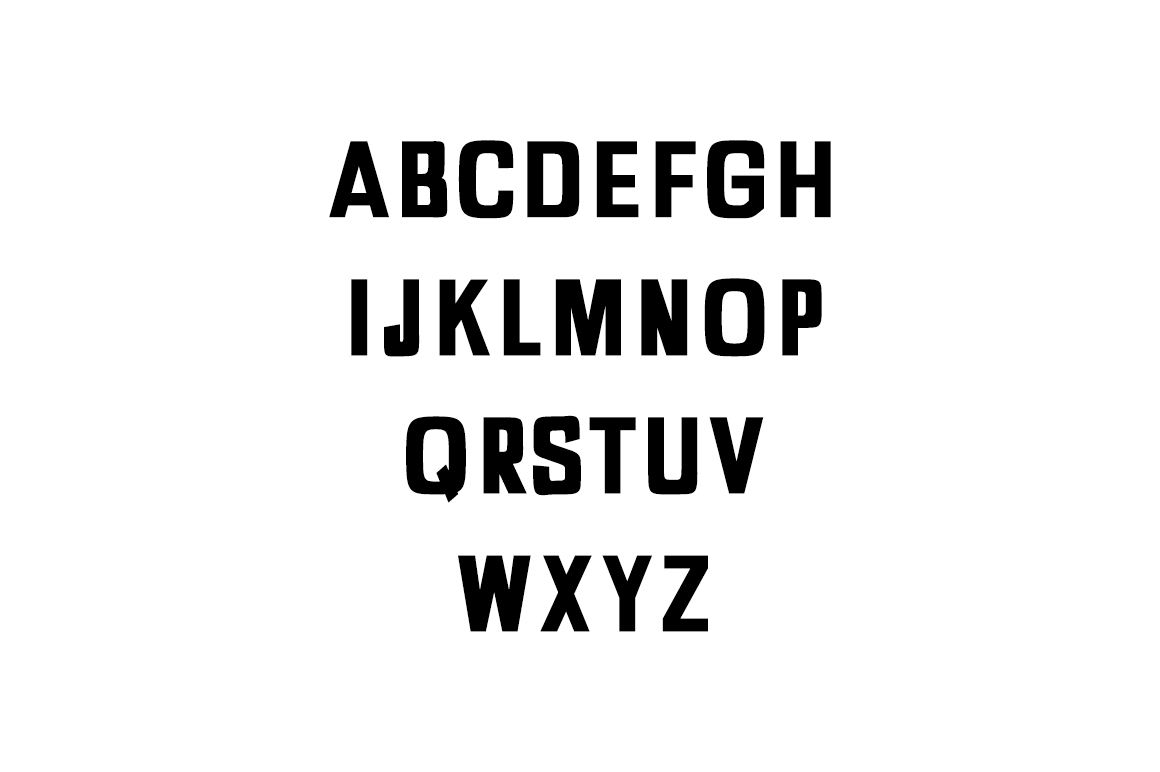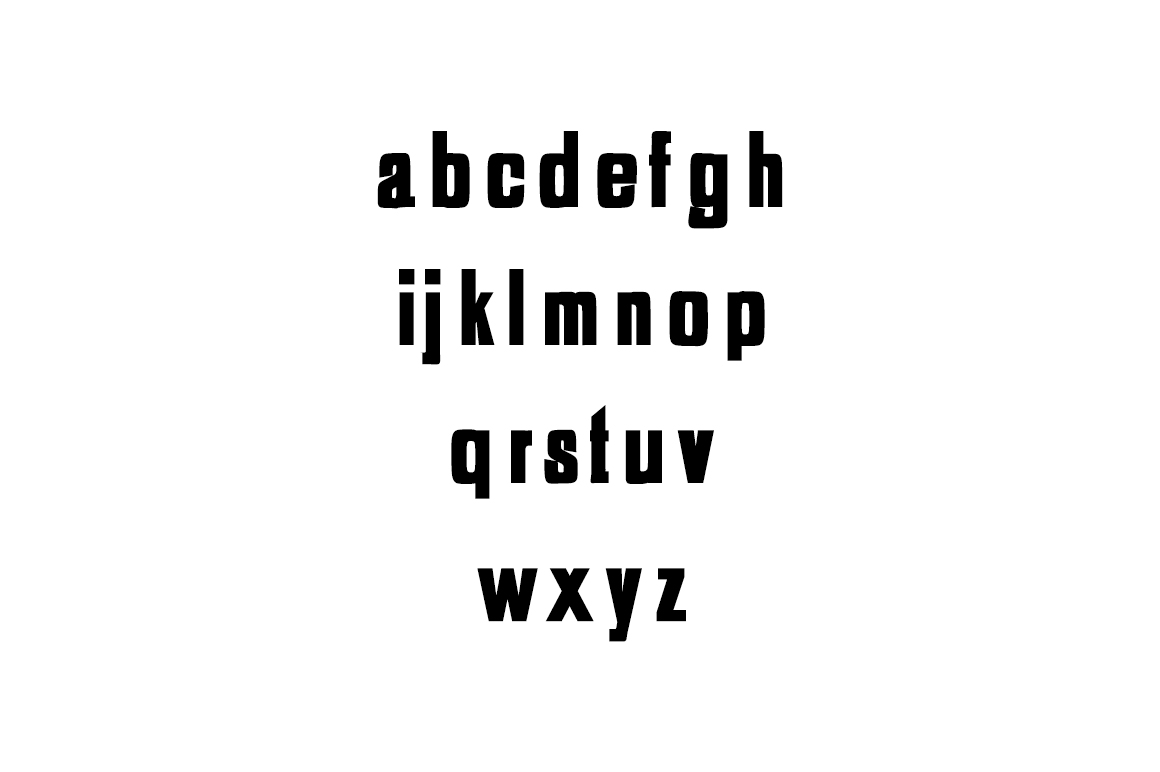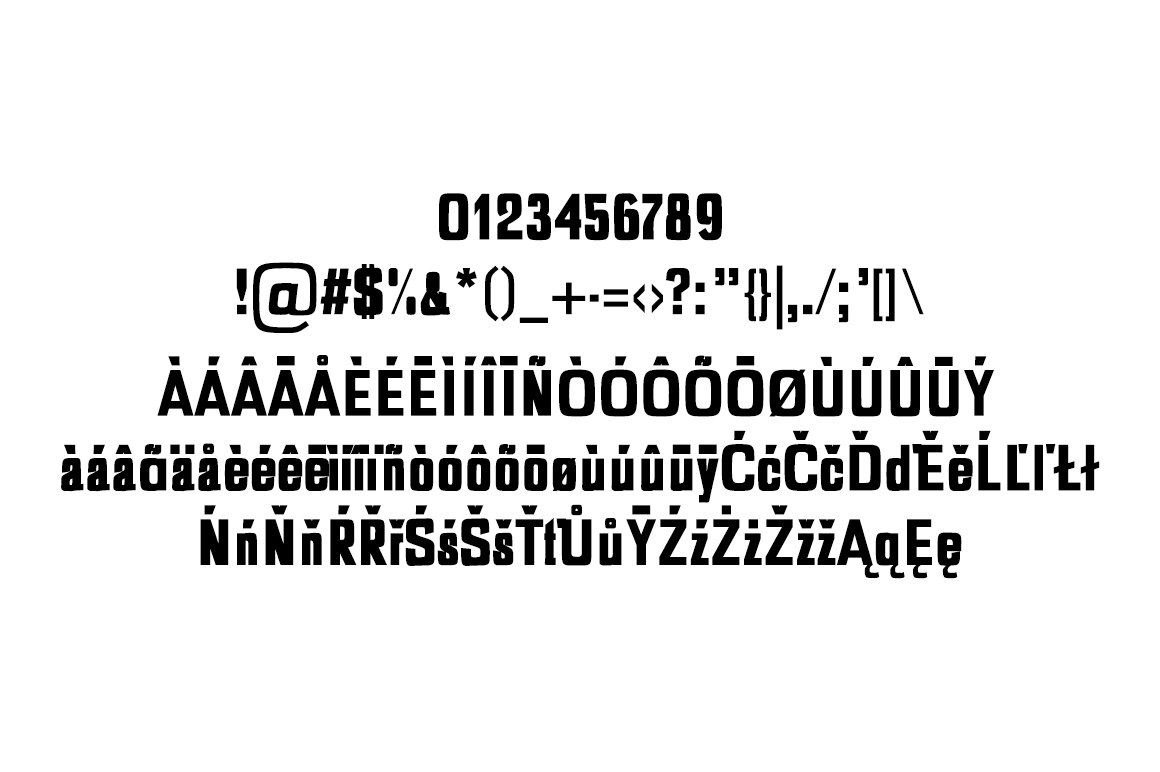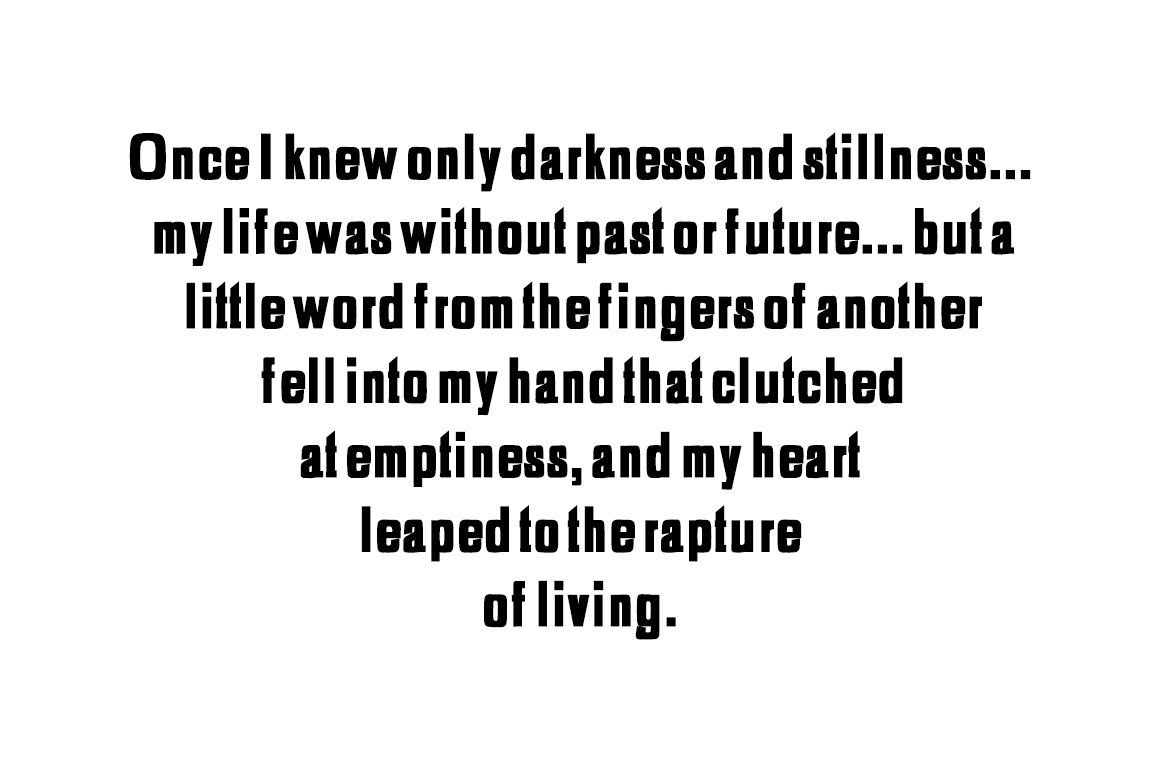
Introducing Adyson Font: A Bold and Striking Sans Serif for Your Creative Projects
Are you tired of using the same old fonts in your designs? Look no further than Adyson, a bold and striking sans serif font that’s perfect for making a statement. With its structurally beautiful design and brazen personality, Adyson is the perfect addition to any designer’s collection.
The Features of Adyson Font
Adyson is a sans serif font, which means it doesn’t have the small lines or flourishes that you often see at the ends of letters in serif fonts. This gives Adyson a clean and modern look that’s perfect for a wide range of design projects. Here are some of the key features that make Adyson stand out:
- Bold and striking: Adyson is a font that’s designed to grab attention. Its bold lines and striking design make it perfect for displays, headings, and other applications where you want to make a statement.
- Structurally beautiful: Despite its bold design, Adyson is also a structurally beautiful font. Its letters are carefully crafted to create a sense of balance and harmony, making it a pleasure to use in your designs.
- Versatile: Adyson is a versatile font that can be used in a wide range of design projects, from posters and flyers to websites and social media graphics.
Why You Should Use Adyson Font
So why should you choose Adyson for your design projects? Here are just a few reasons:
- Add a touch of sophistication: Adyson’s clean and modern design makes it perfect for adding a touch of sophistication to your designs. Whether you’re working on a luxury brand or a high-end product, Adyson is a great choice.
- Stand out from the crowd: With its bold and striking design, Adyson is a great way to make your designs stand out from the crowd. Whether you’re competing for attention in a crowded market or just want to make a statement, Adyson is a great choice.
- Easy to read: Despite its bold design, Adyson is also an easy-to-read font. This makes it perfect for use in body text, as well as headings and displays.
How to Use Adyson Font
Adyson is a versatile font that can be used in a wide range of design projects. Here are a few ideas to get you started:
- Posters and flyers: Adyson is a great choice for posters and flyers, where you want to grab attention and make a statement.
- Websites and social media graphics: Adyson is also a great choice for websites and social media graphics, where you want to add a touch of sophistication and style.
- Logos and branding: Adyson’s bold and striking design makes it a great choice for logos and branding projects, where you want to make a statement and stand out from the crowd.